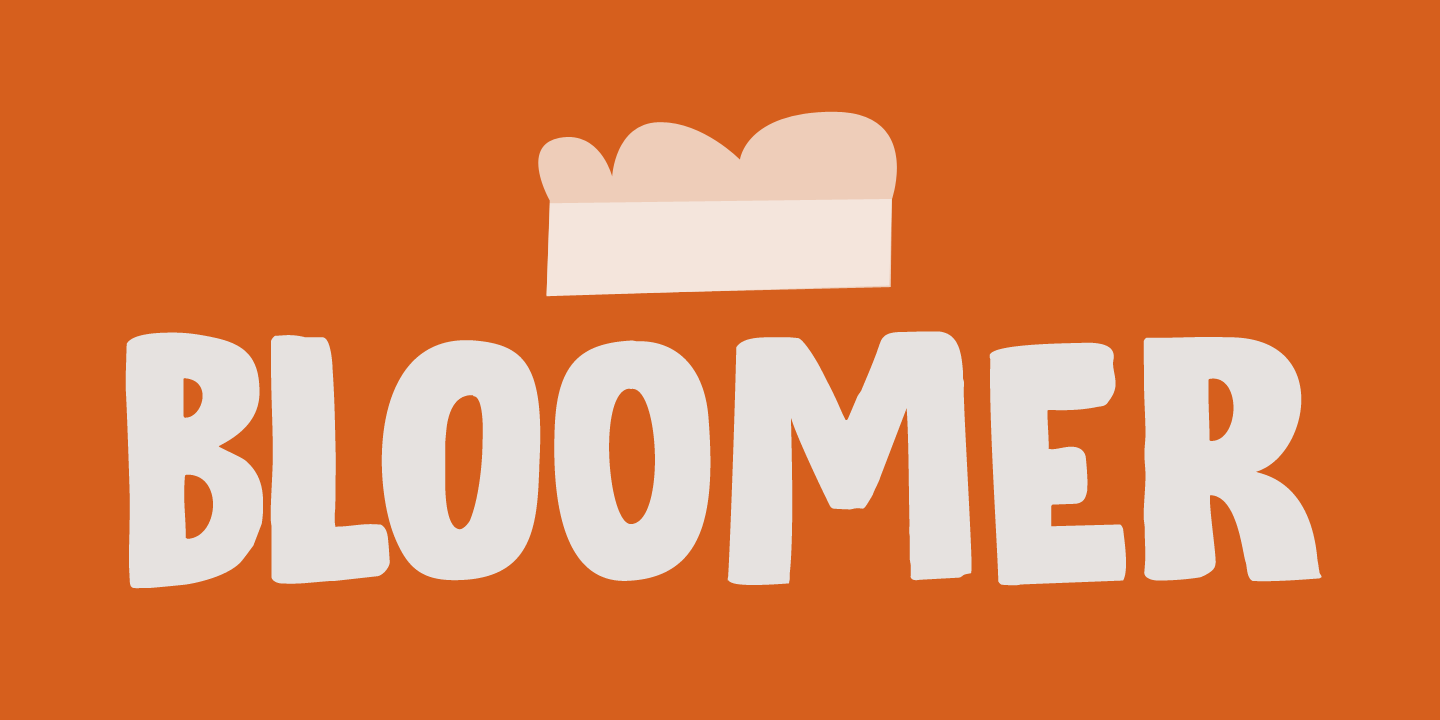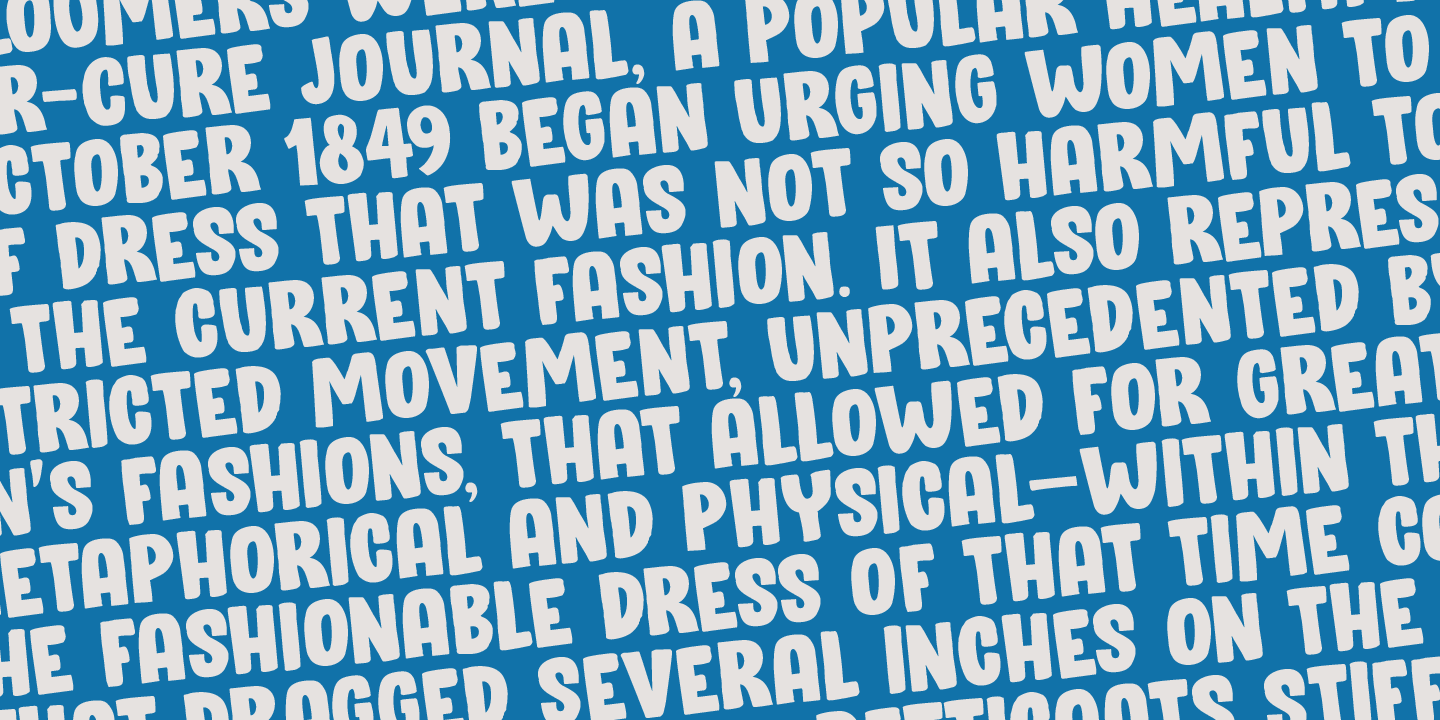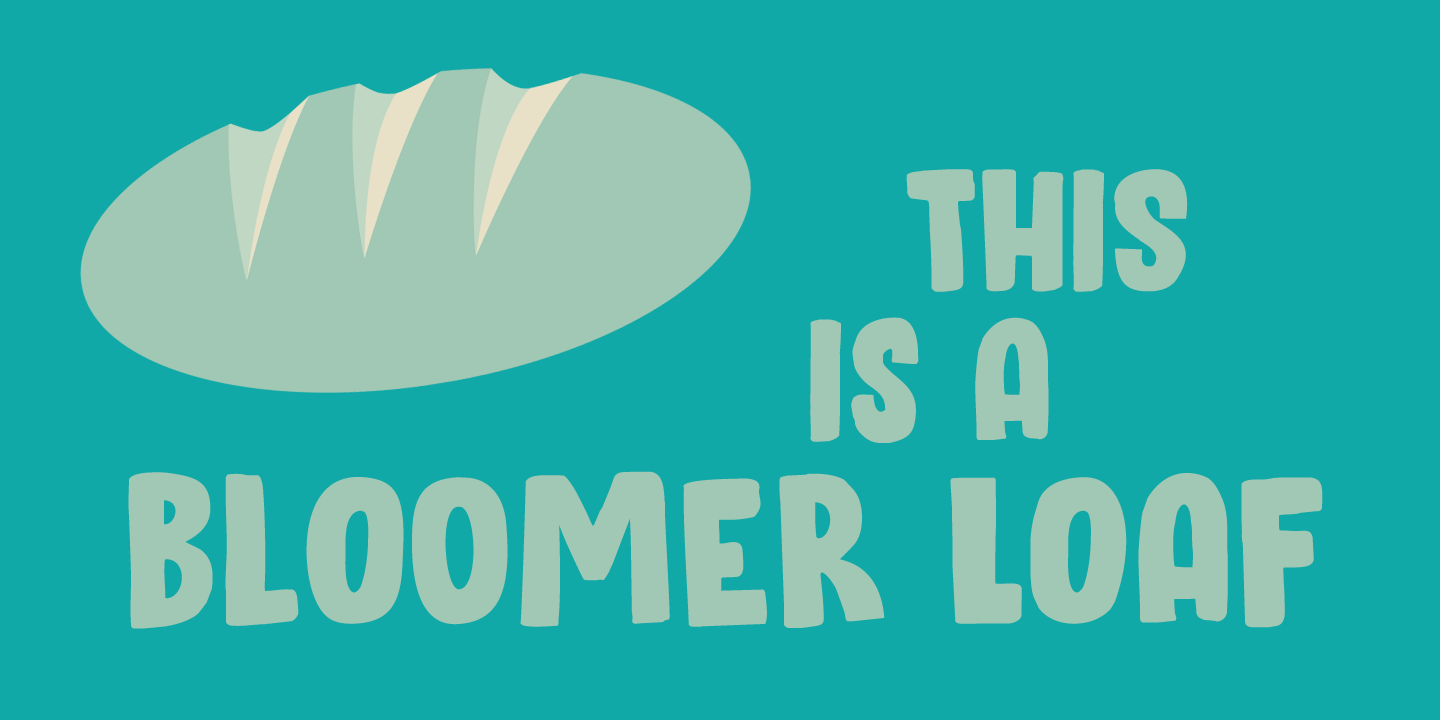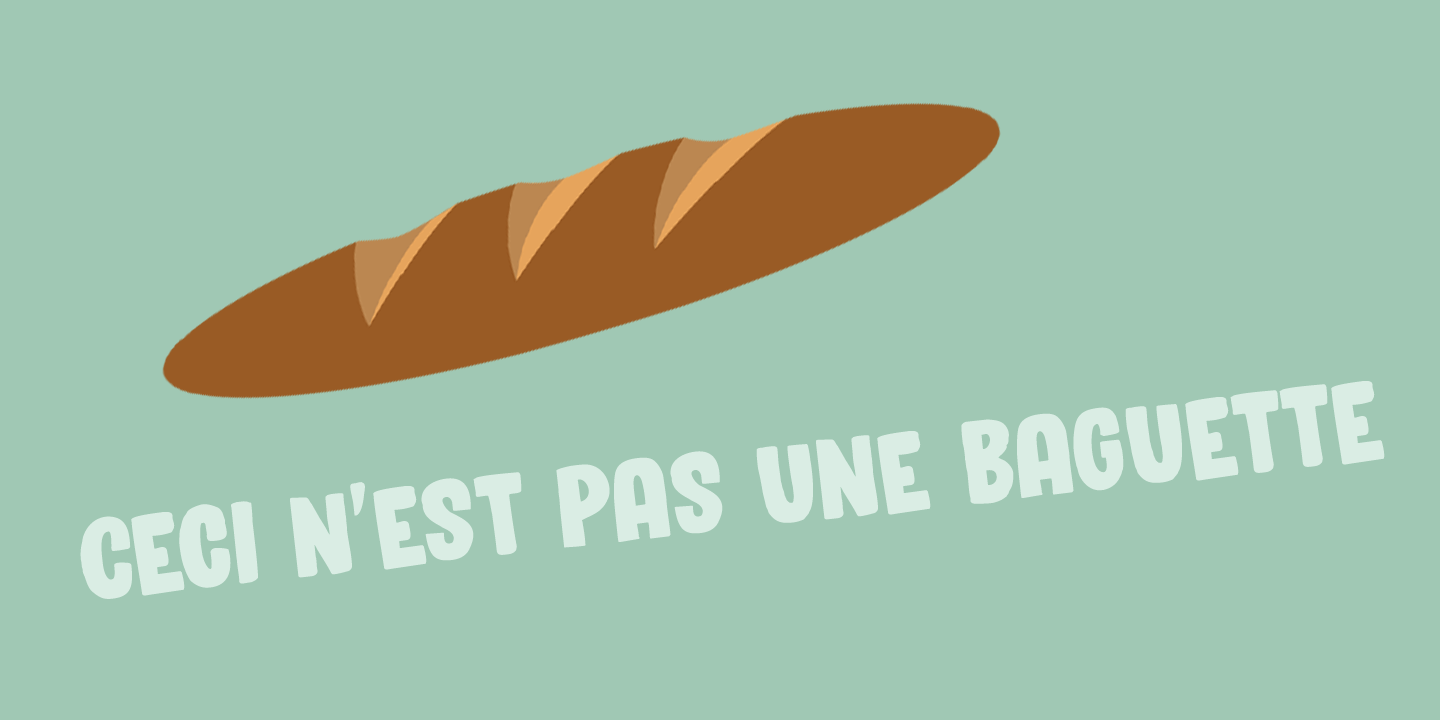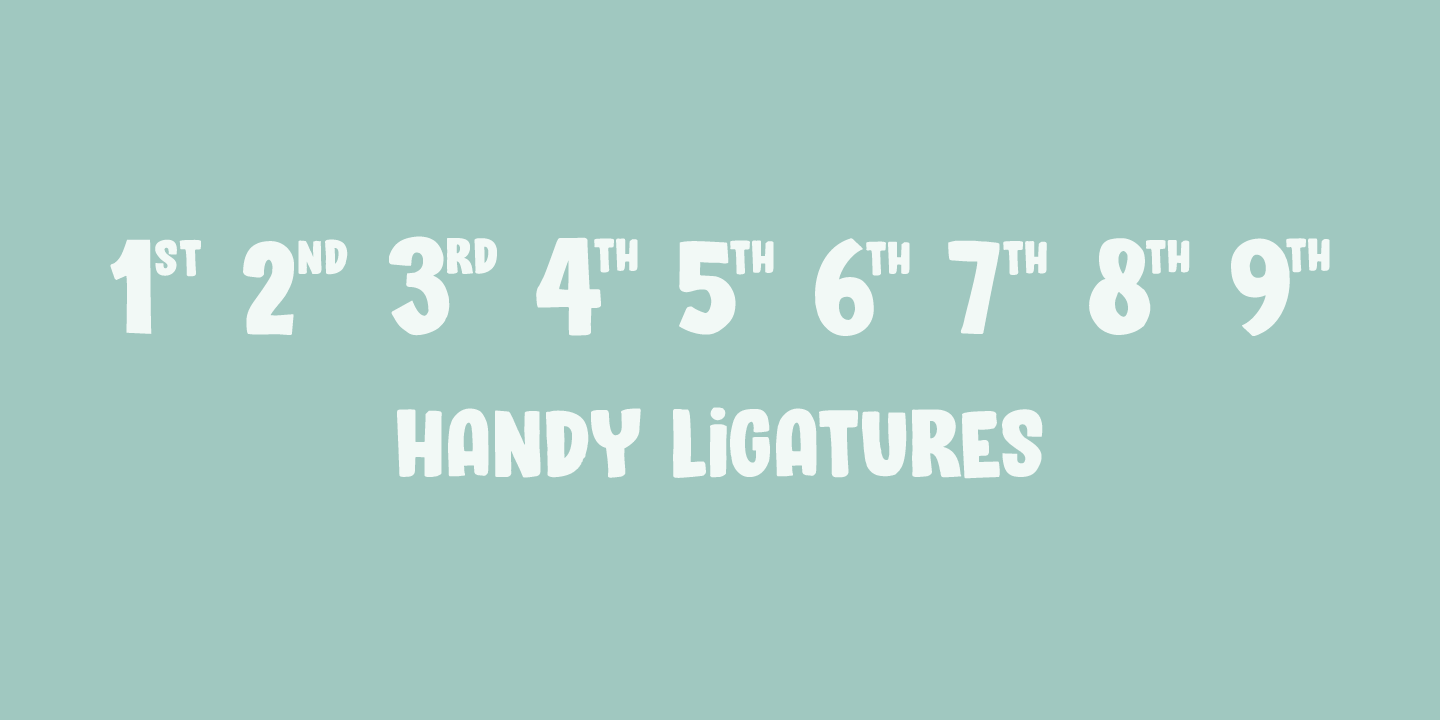
Bloomer
A Bloomer is a crusty loaf of bread with rounded ends. I don't know why I chose this name, but it may have to do with the fact that my wife signed up for a bread baking course.
Bloomer is a rounded, hand made cartoon-ish font. It will look especially good on product packaging, but any design in need of some authenticity could do with a bit of Bloomer! Comes with ligatures and a light dusting of alternates.